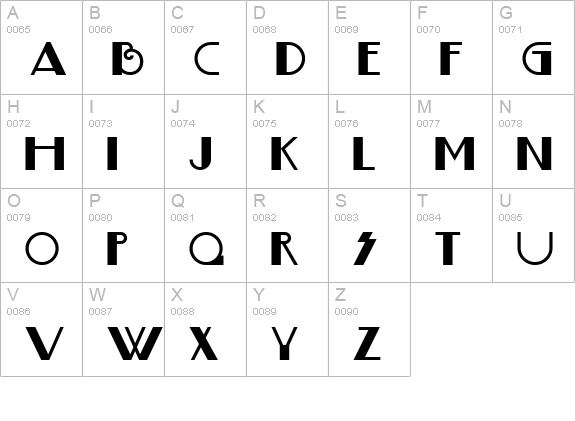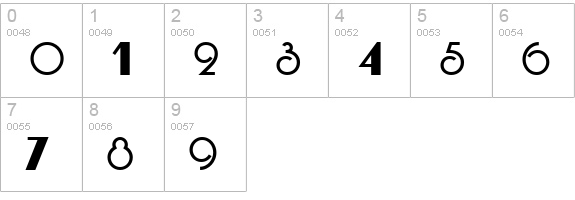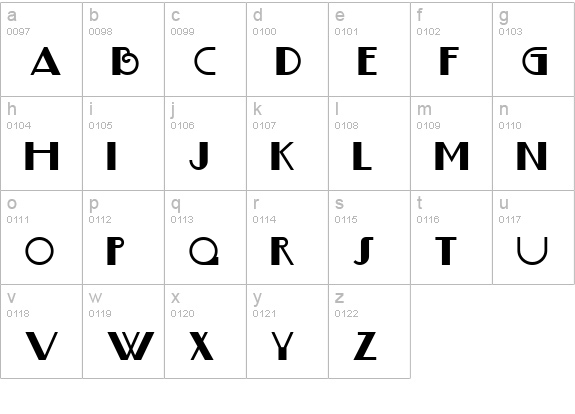
Boogie Nights NF Font Details
Boogie Nights NF font is a stylish and retro-inspired typeface that exudes a sense of fun and nostalgia. With its bold and playful letterforms, this font is perfect for adding a touch of personality to any project. Whether you're working on a poster, logo, or social media graphics, Boogie Nights NF will surely make your designs stand out. What makes Boogie Nights NF font even more appealing is that it is available for free download at FontsMarket.com. This means you can easily access this eye-catching font and use it in your creative endeavors without any cost. Don't miss out on the opportunity to elevate your designs with the charm and character of Boogie Nights NF font - download it today and let your creativity shine!